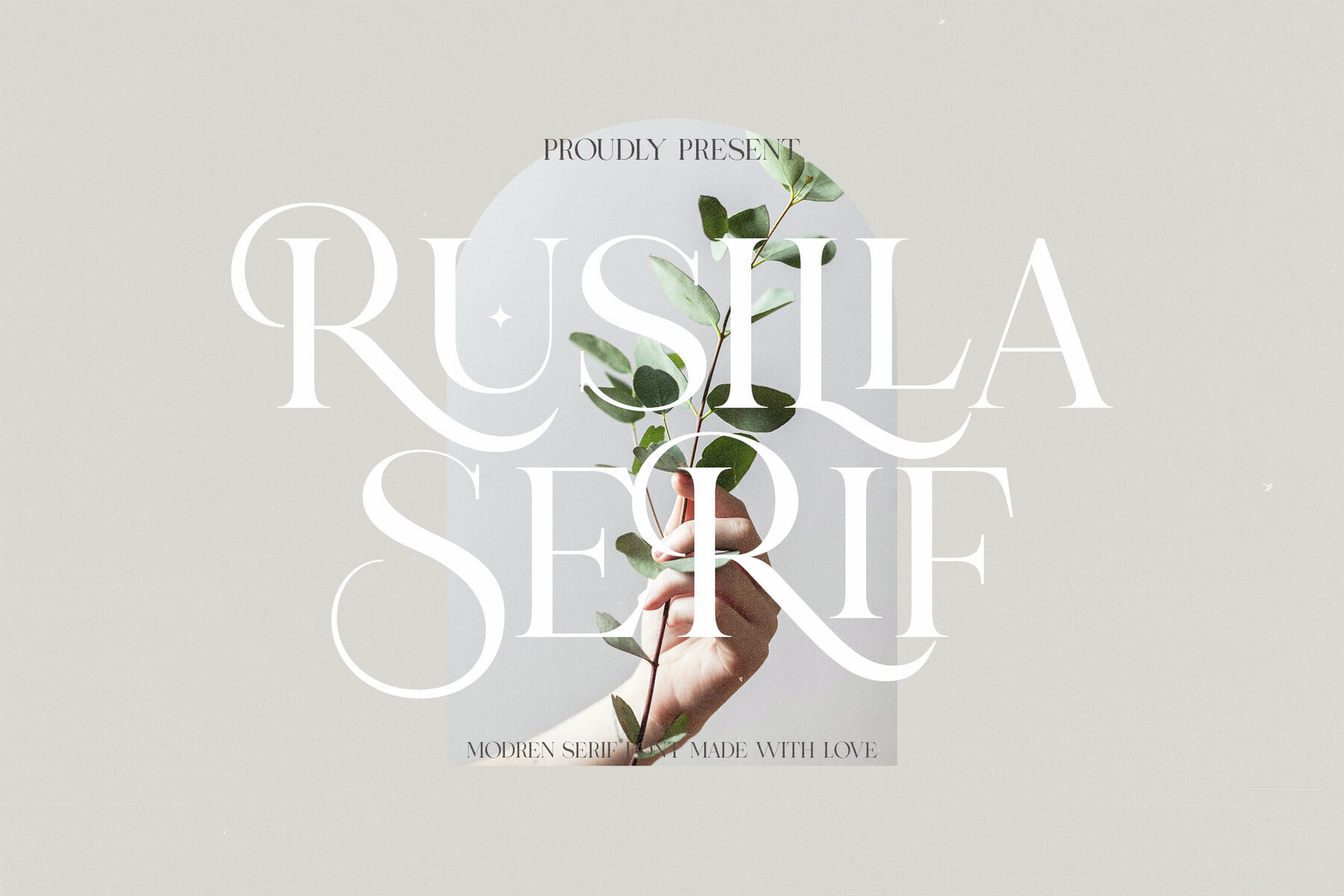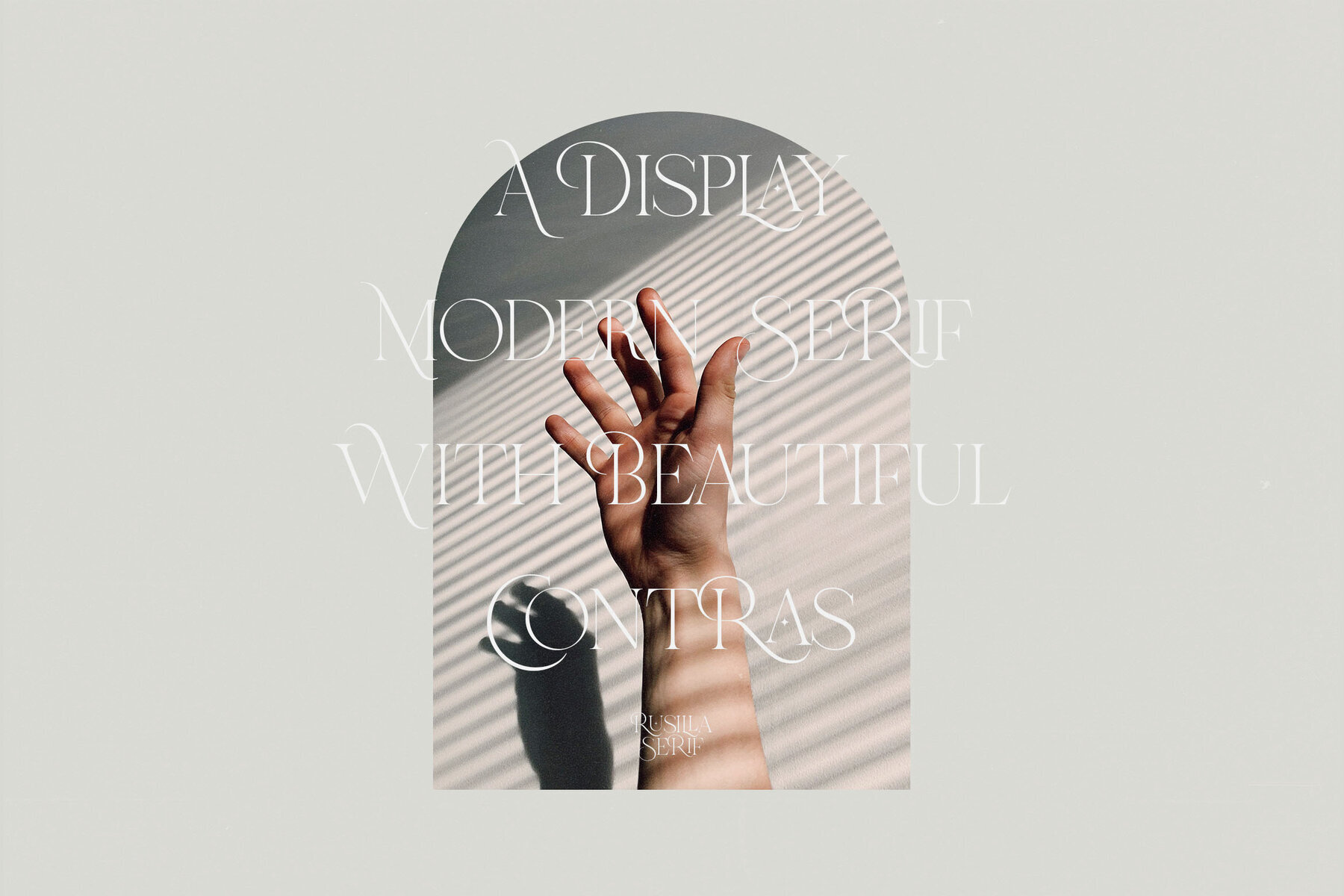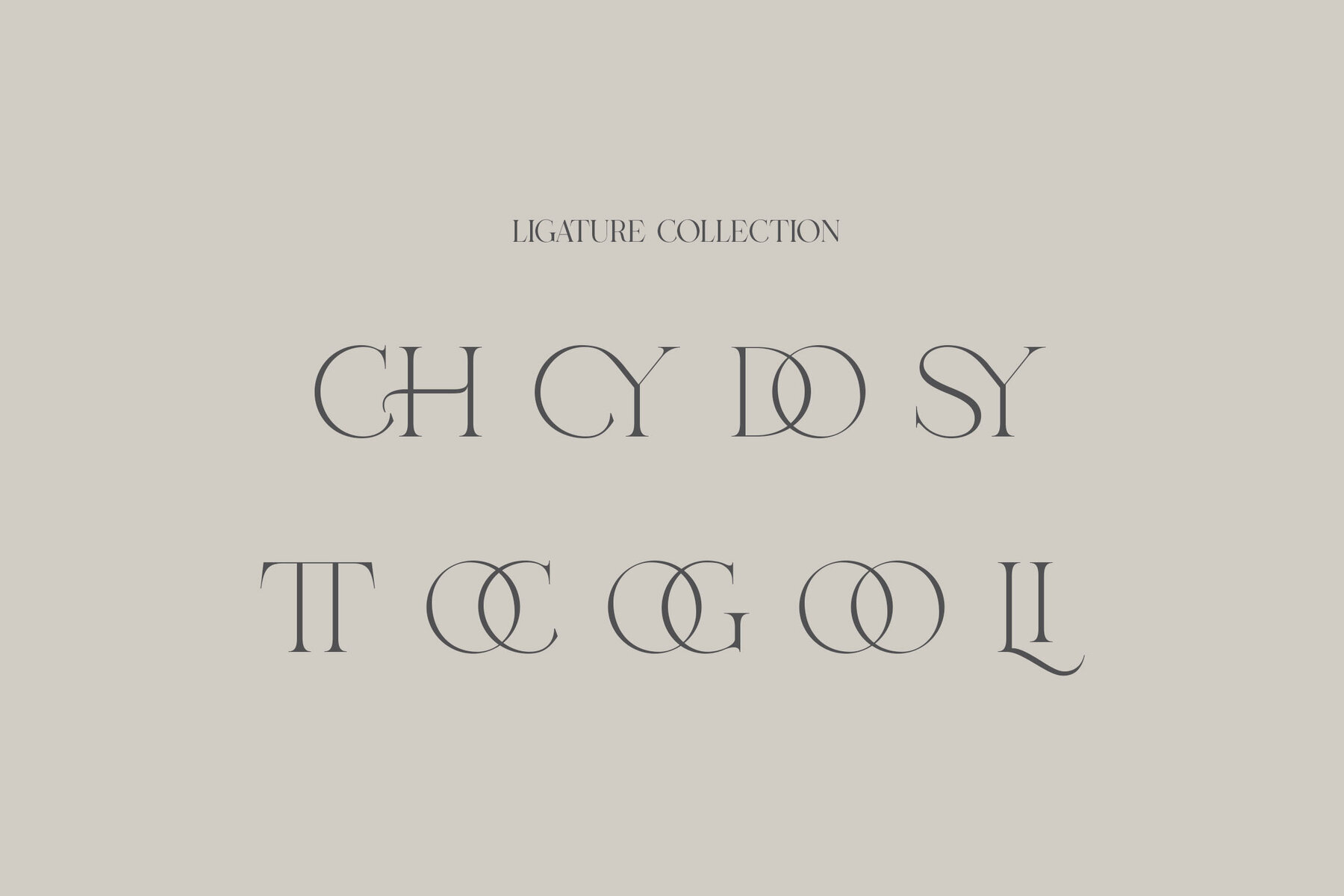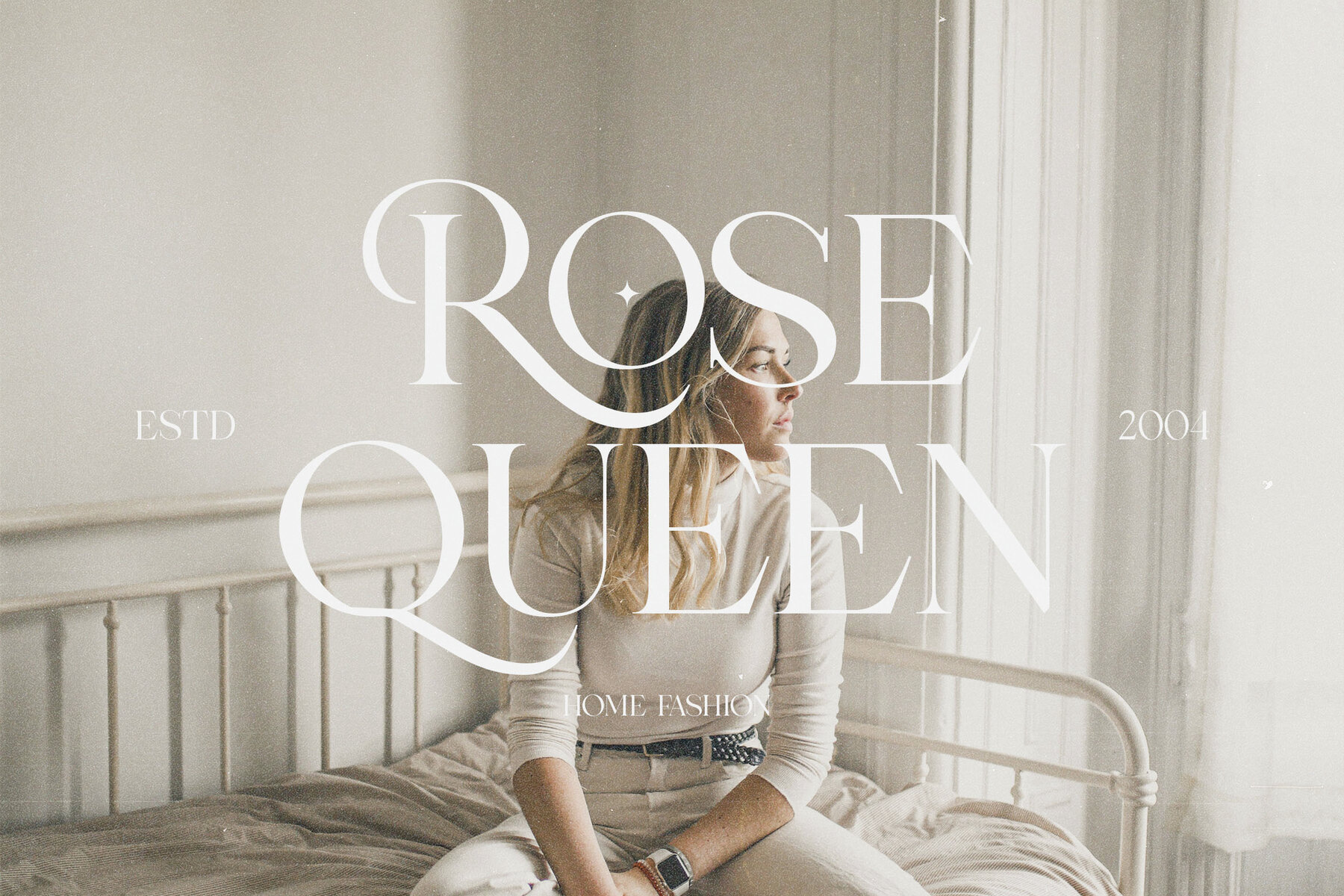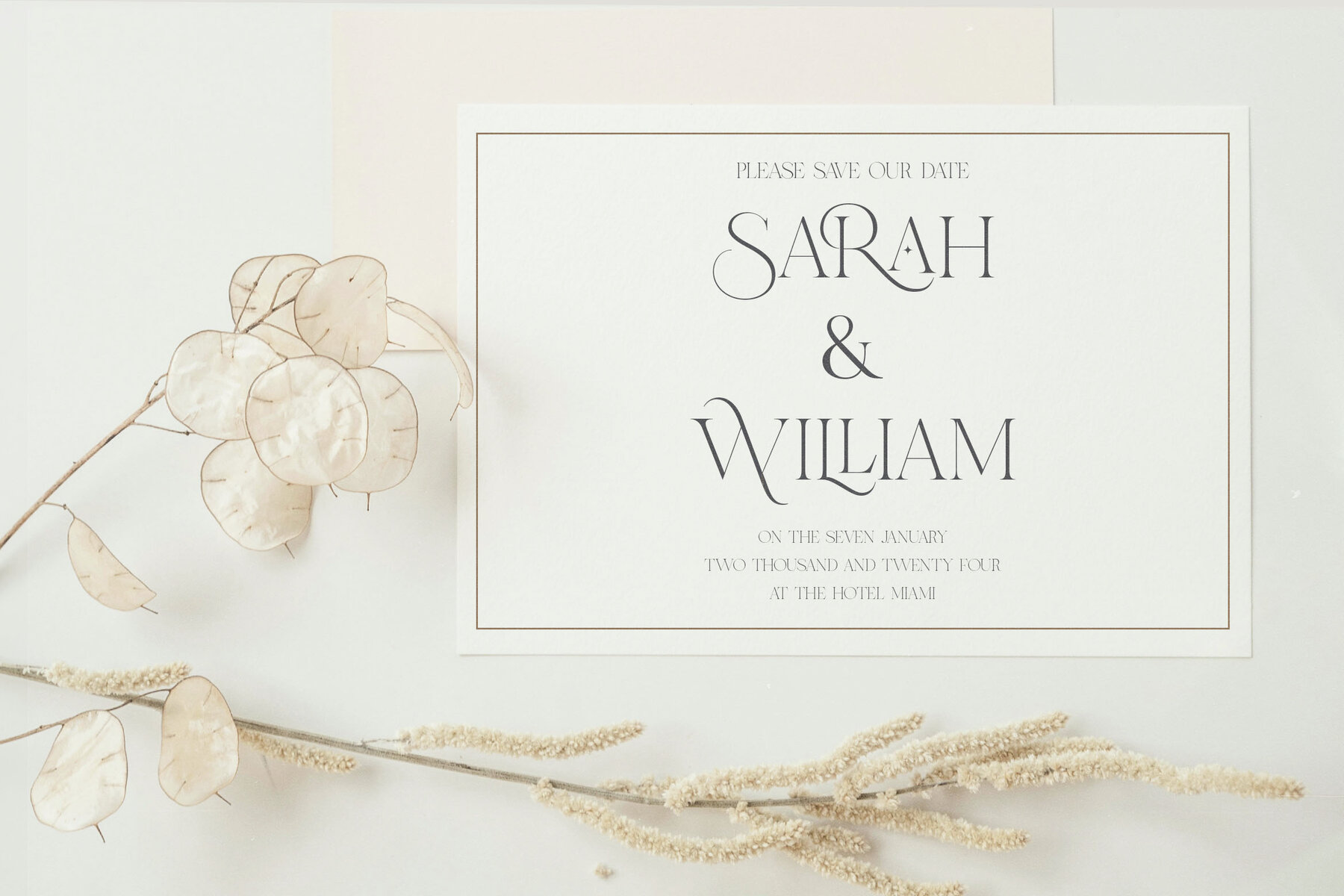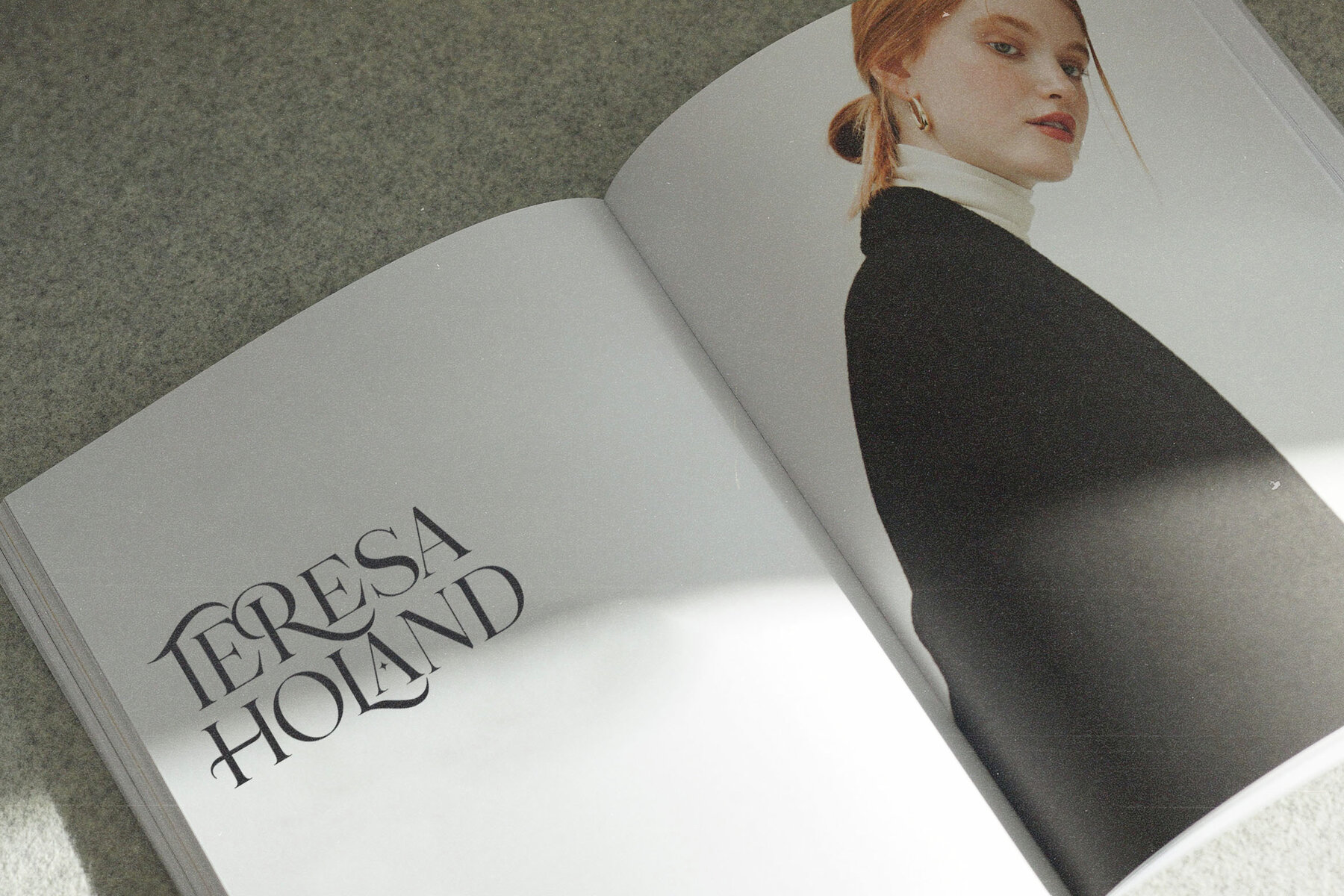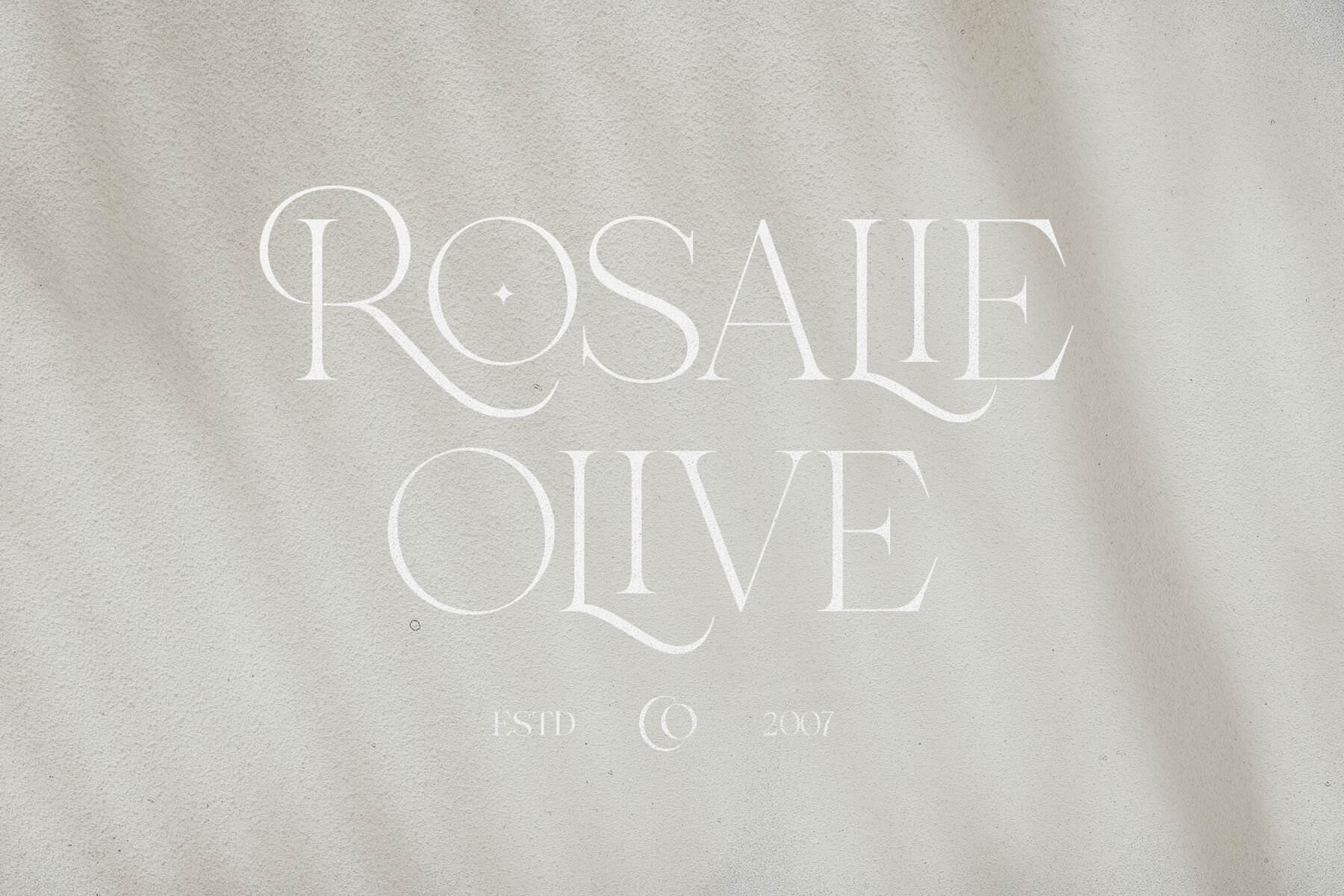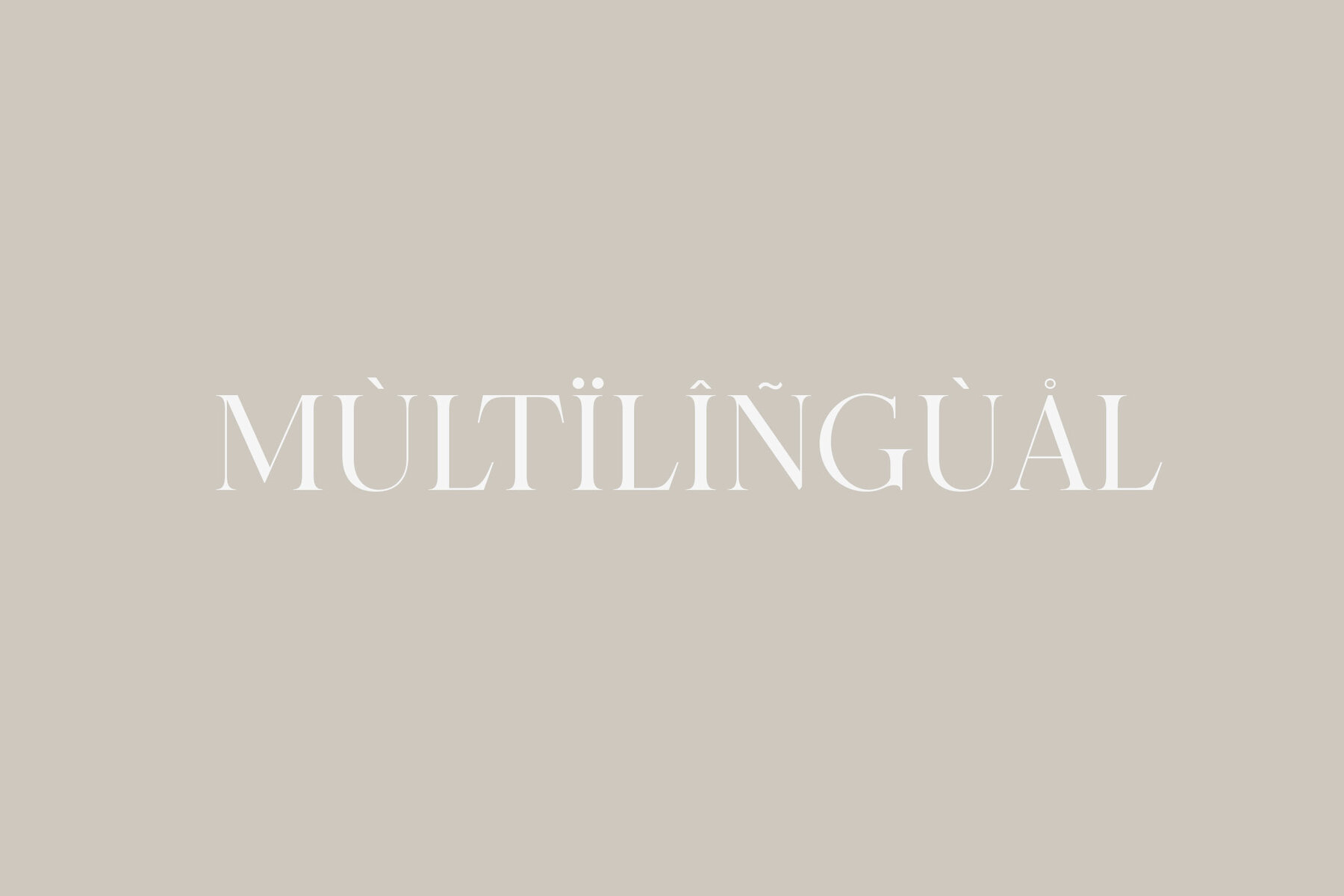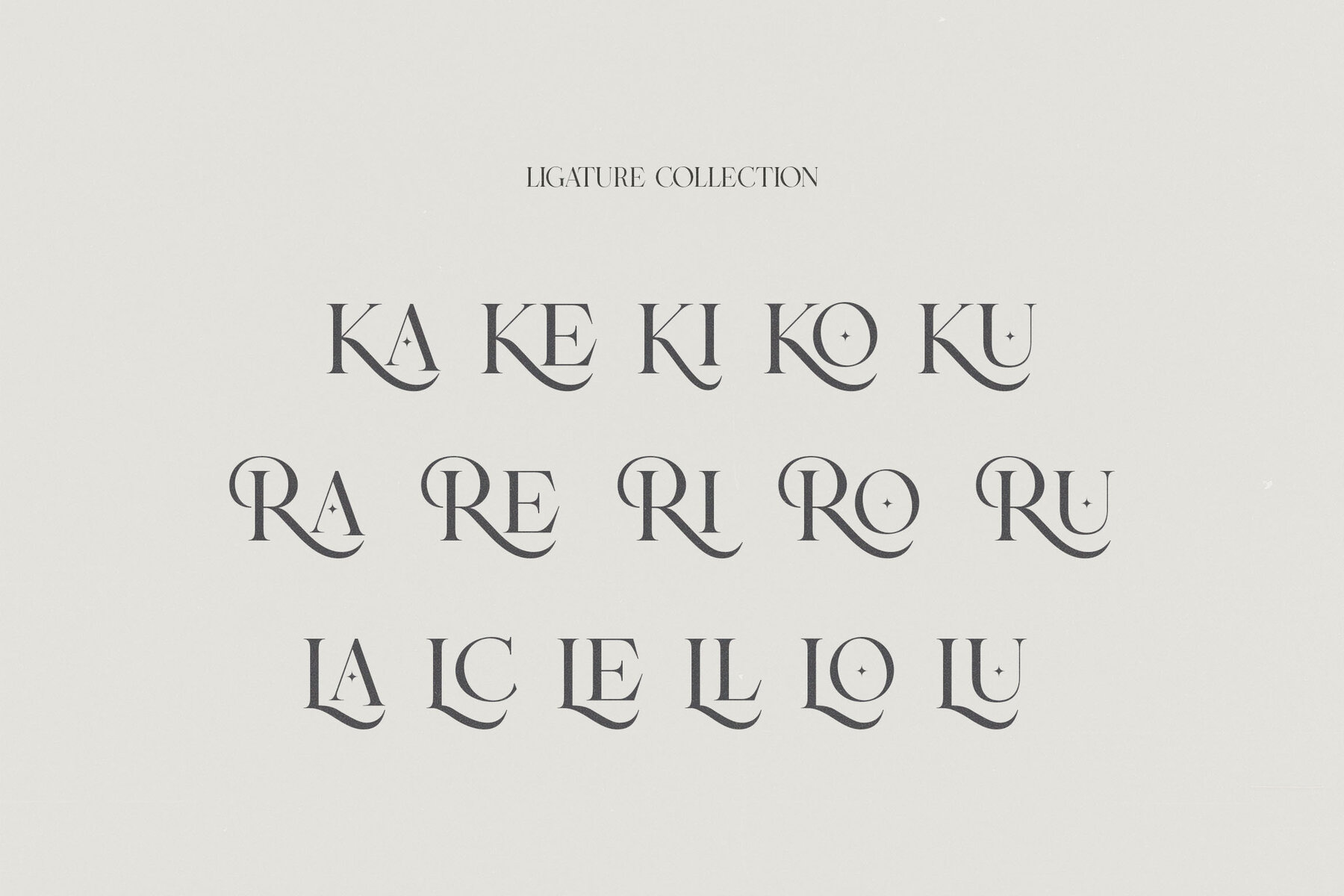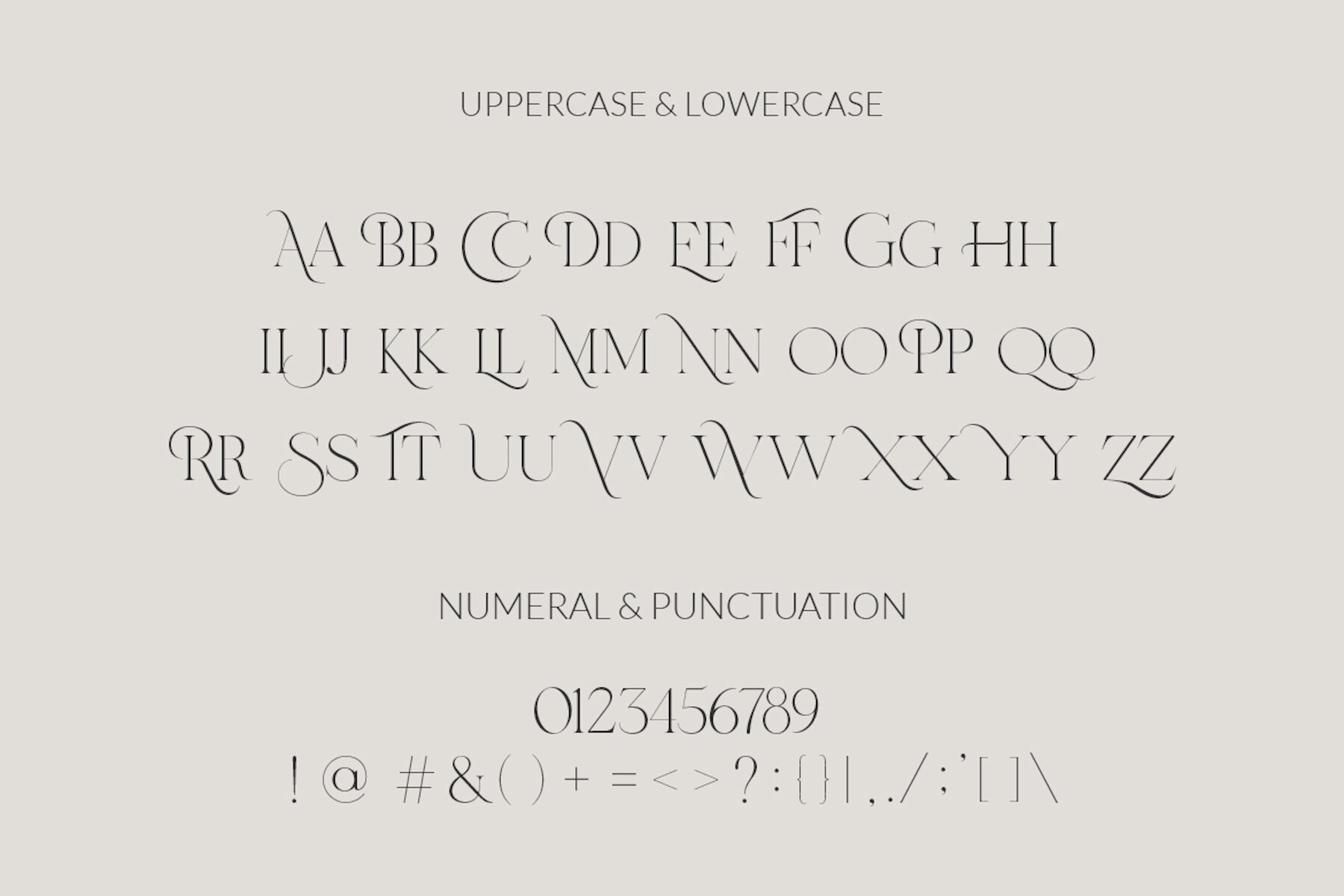
Rusilla Font
Rusilla Serif Light
Rusilla Serif Regular
Immerse yourself in the timeless elegance of Rusilla Serif, a sophisticated typeface designed to infuse any design with professionalism and class. With its classic letterforms, Rusilla Serif is a versatile choice that effortlessly enhances formal applications, ensuring your work exudes a high-end, polished aesthetic. Whether you're crafting invitations, wedding cards, or fashion branding, this font conveys luxury and grace with each letter. Choose Rusilla Serif to instill a sense of tradition and sophistication in your projects, making it an indispensable tool for designers who value both beauty and practicality.Rusilla Serif Typeface